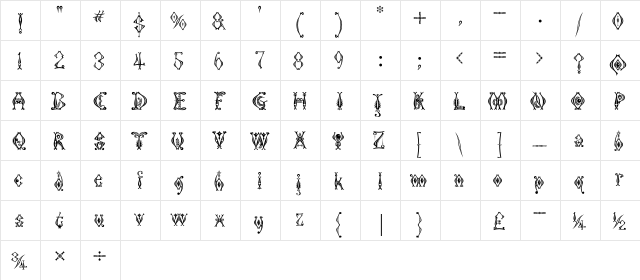
Kingthings Tendrylle Regular
| Designer | Kevin King, Exeter, England. |
Design Context for Kingthings Tendrylle Typeface
Kingthings Tendrylle is a composed and adaptable typeface that performs quietly and consistently across a wide range of design contexts. Its slender proportions lend an understated elegance to any composition.